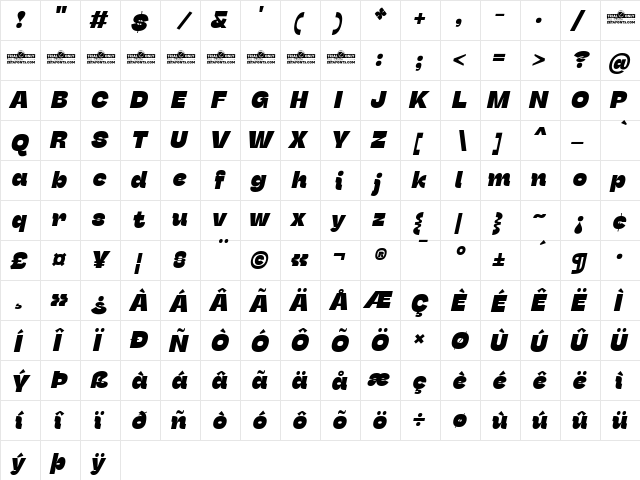
Stinger Trial Heavy Italic
Design Context for Stinger Trial Typeface
Stinger Trial takes a measured approach to typography — its balanced proportions and neutral character make it a reliable workhorse for both digital and print work. The dynamic lean of this cut emphasises speed and emphasis in any layout.
Pro Tip: Use Stinger Trial for emphasis, pull quotes, and subheadings where its slanted energy can add rhythm to the layout.